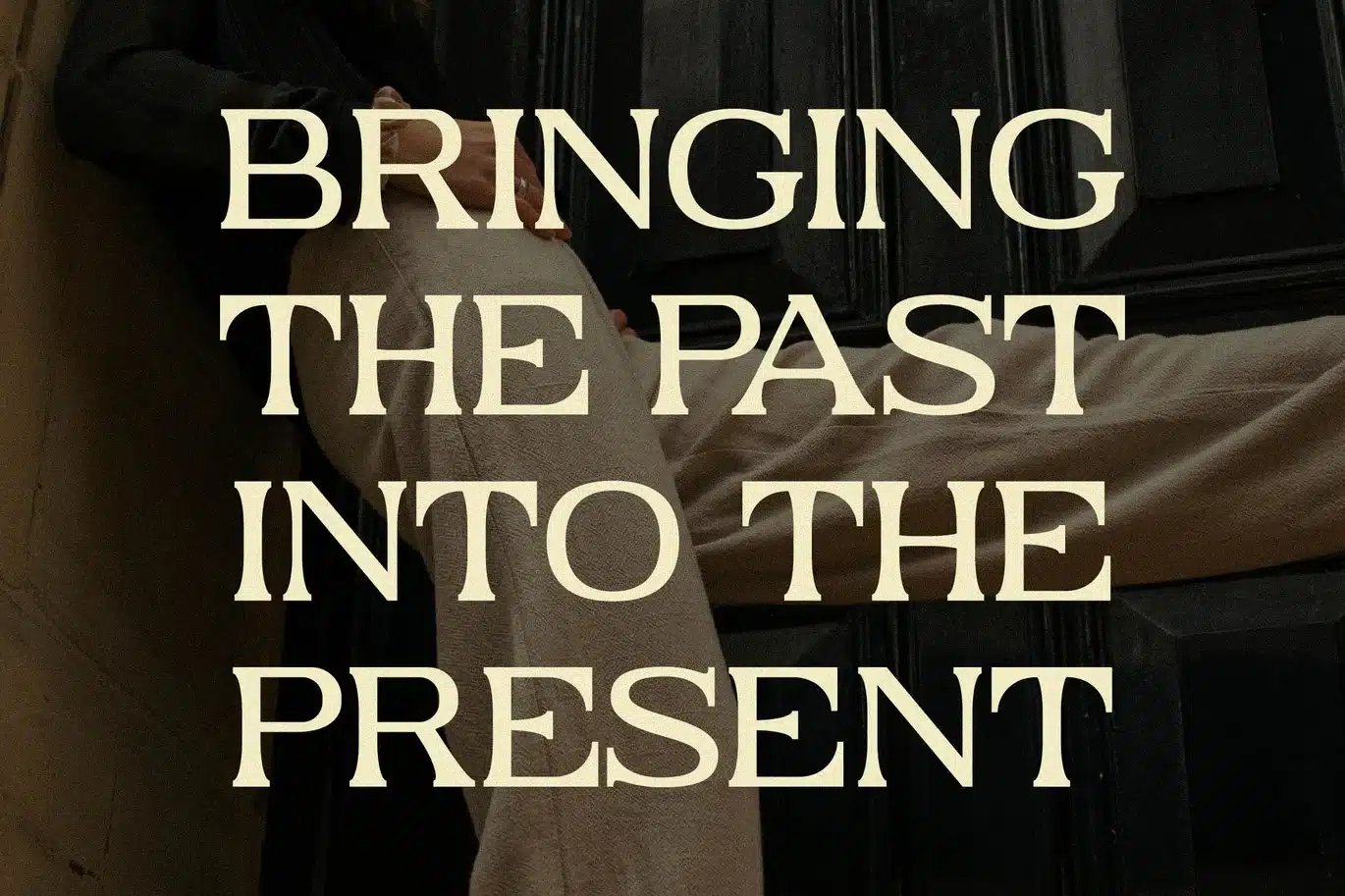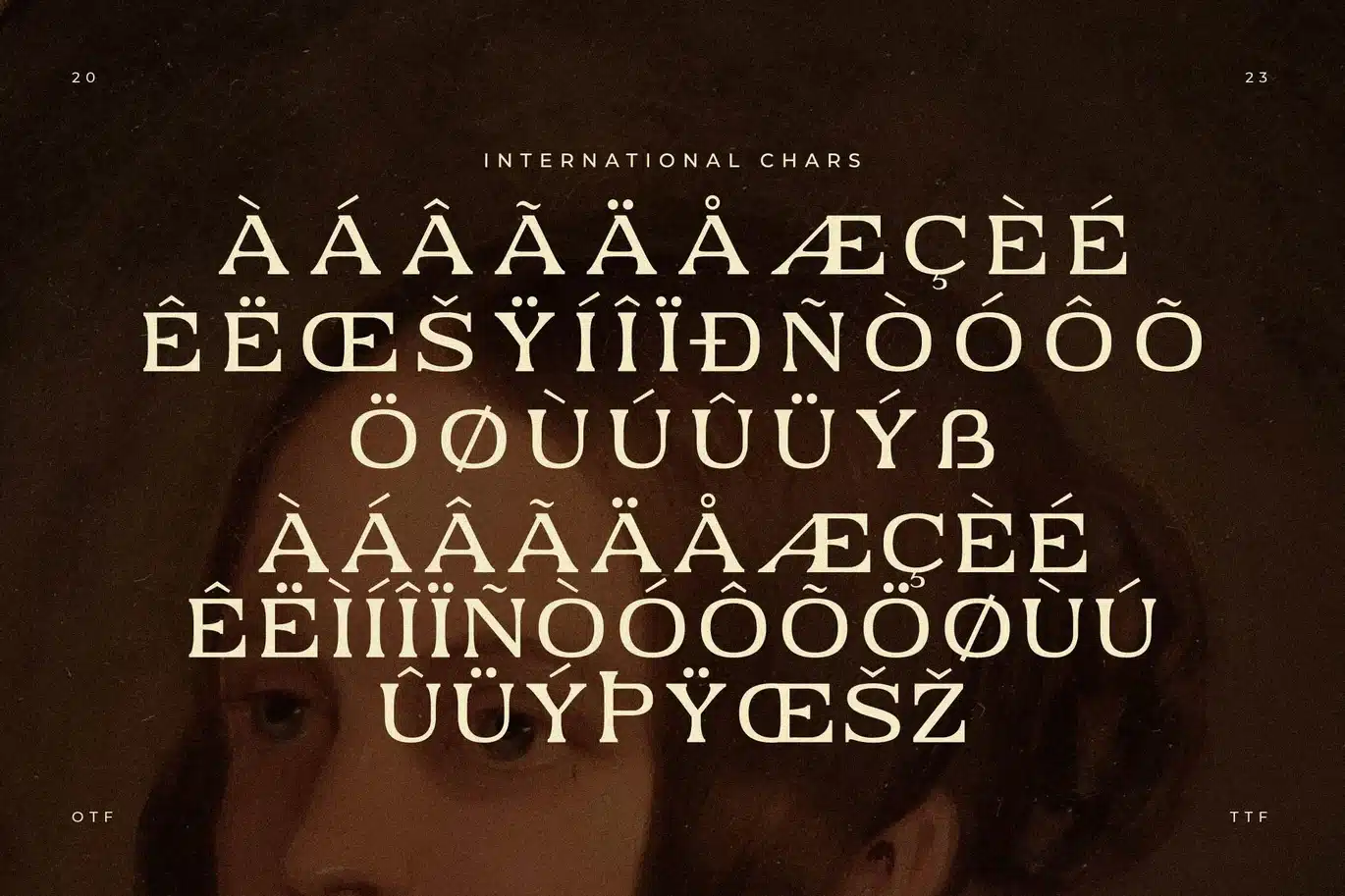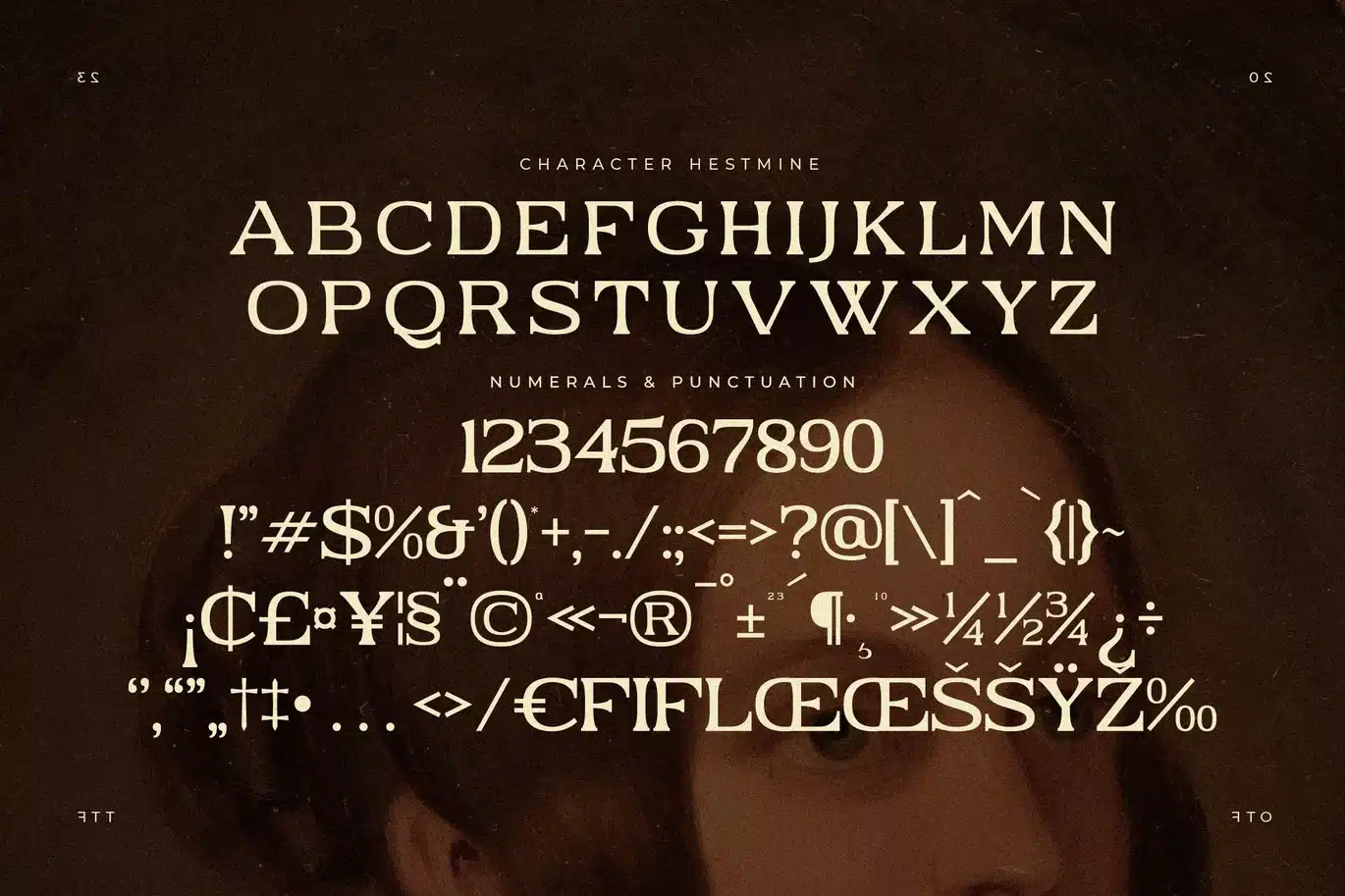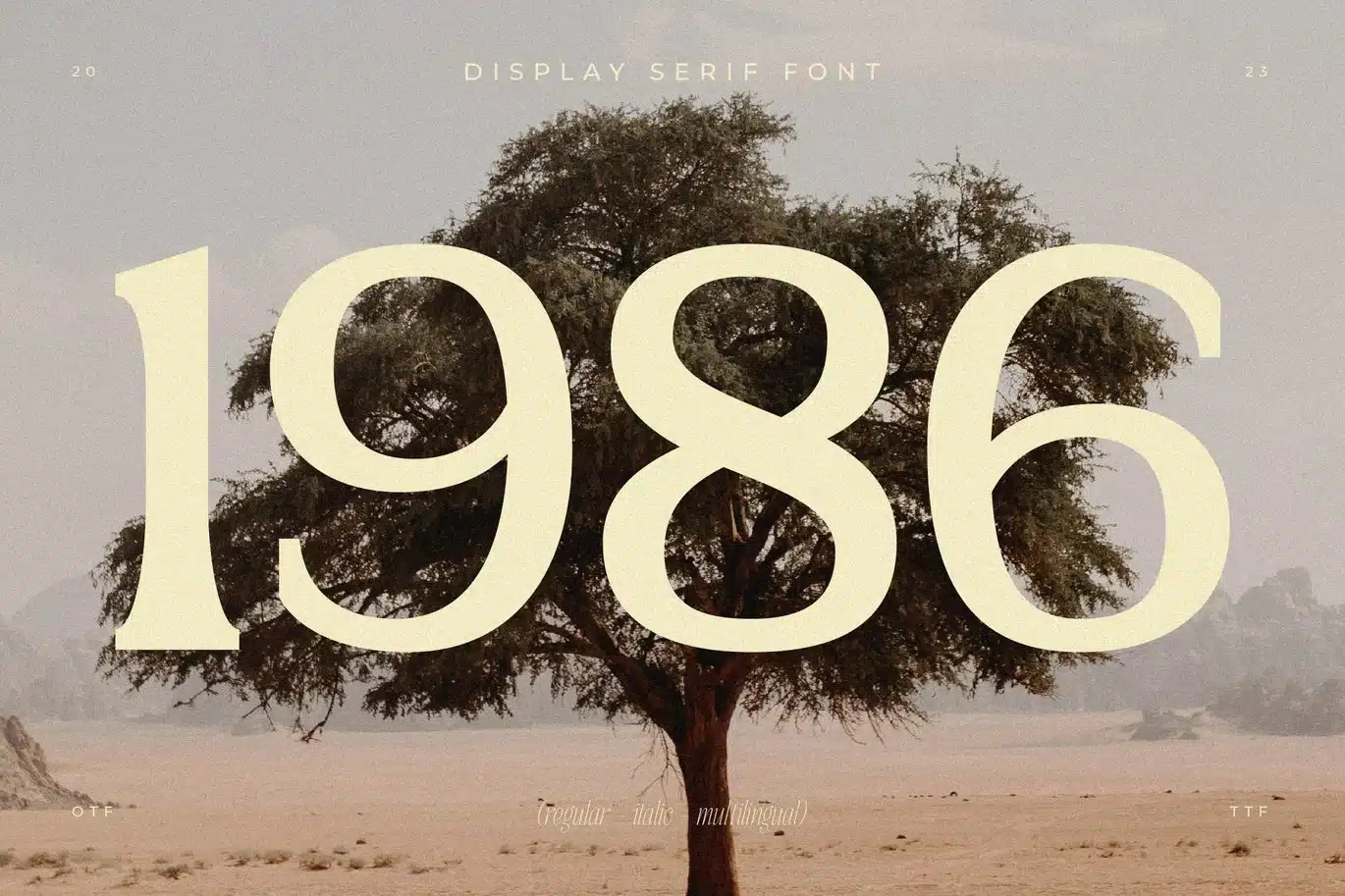
Hestmine Display Serif Font
Hestmine is a refined display serif font inspired by classical elegance and timeless editorial aesthetics. With its high-contrast strokes, sharp serifs, and subtle vintage character, Hestmine delivers a luxurious, old-world feel that still looks confident and modern in contemporary layouts.
- Elegant display serif with classic proportions
- High-contrast strokes for a premium editorial look
- Strong visual presence for headlines and titles
- Balanced letterforms that feel timeless yet modern
Perfect For:
- Editorial & magazine headlines
- Luxury branding & identity
- Posters, covers, and typography-led designs
- Fashion, art, and cultural projects
- Vintage-inspired modern layouts
Where classic beauty meets modern confidence — crafted to stand the test of time.